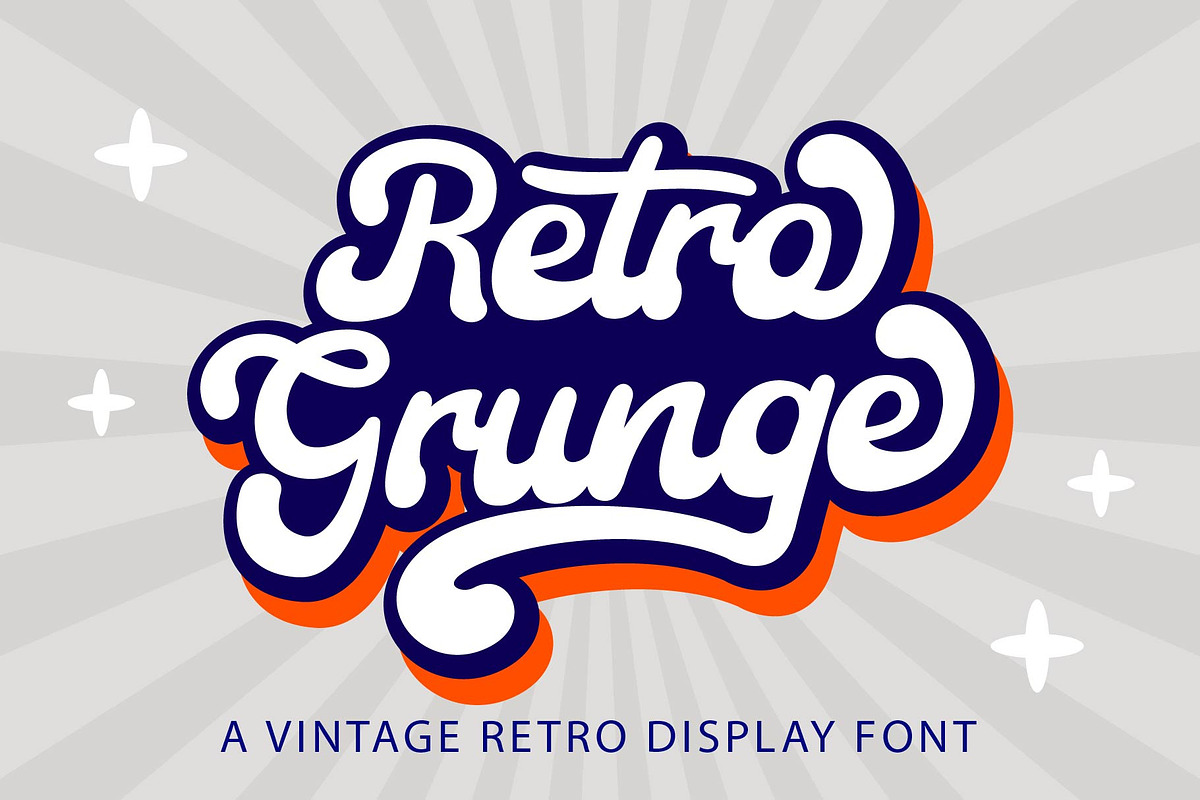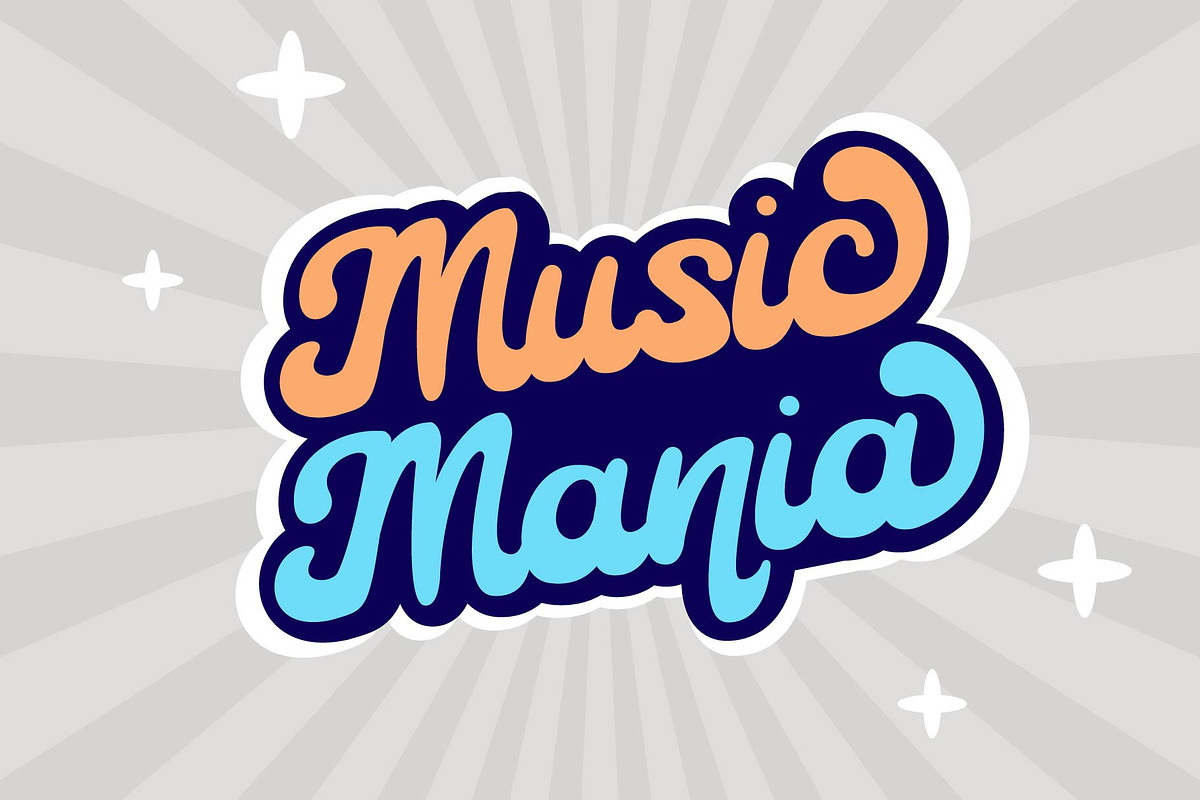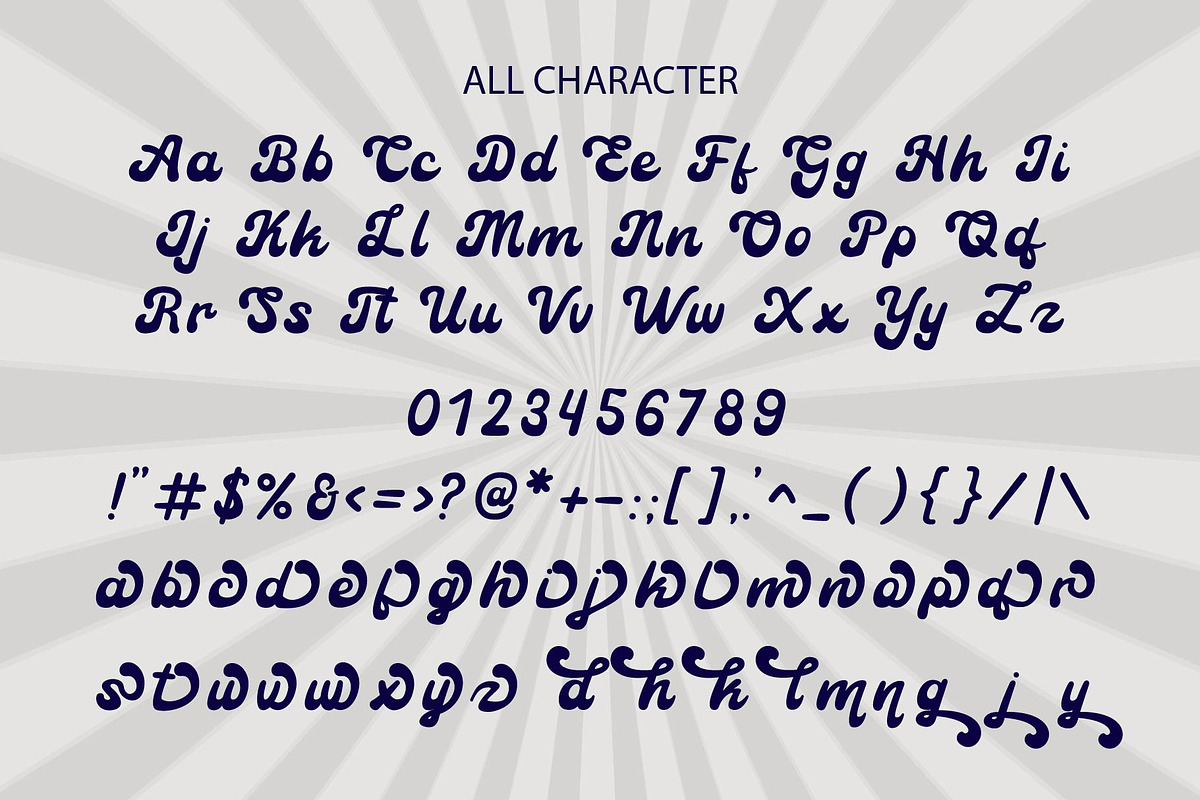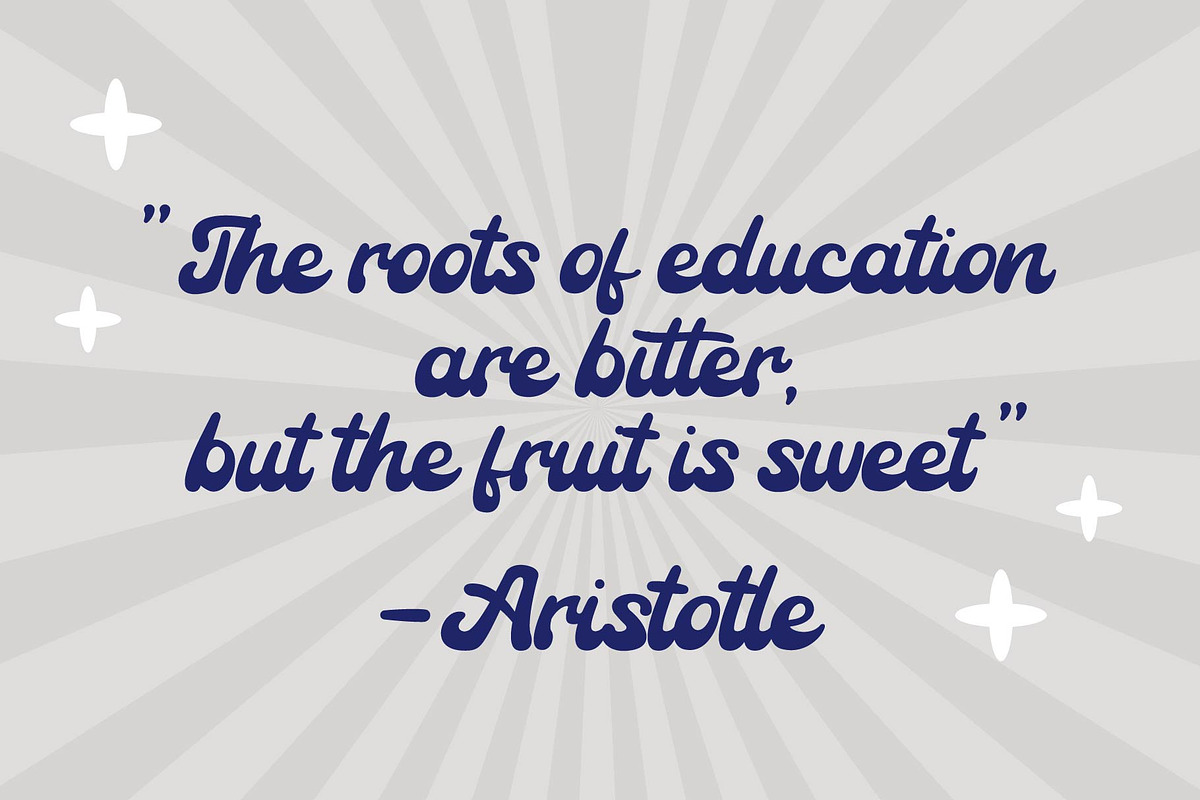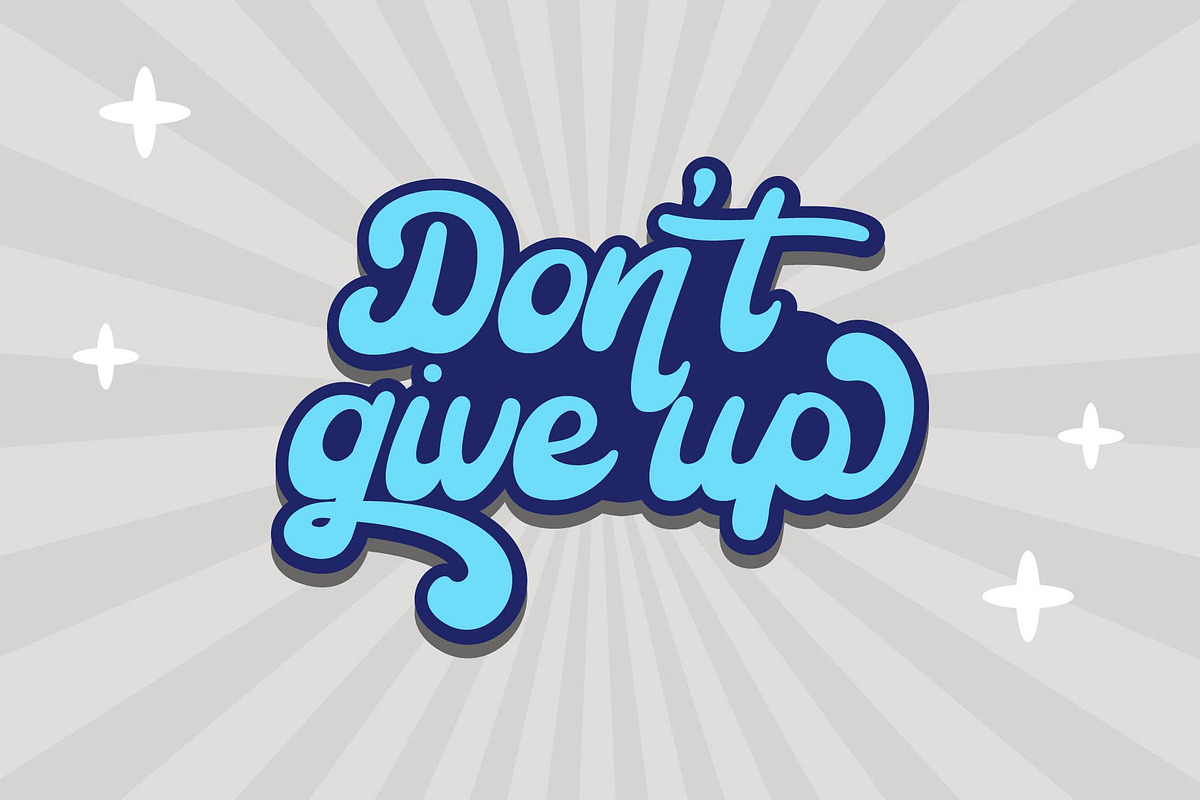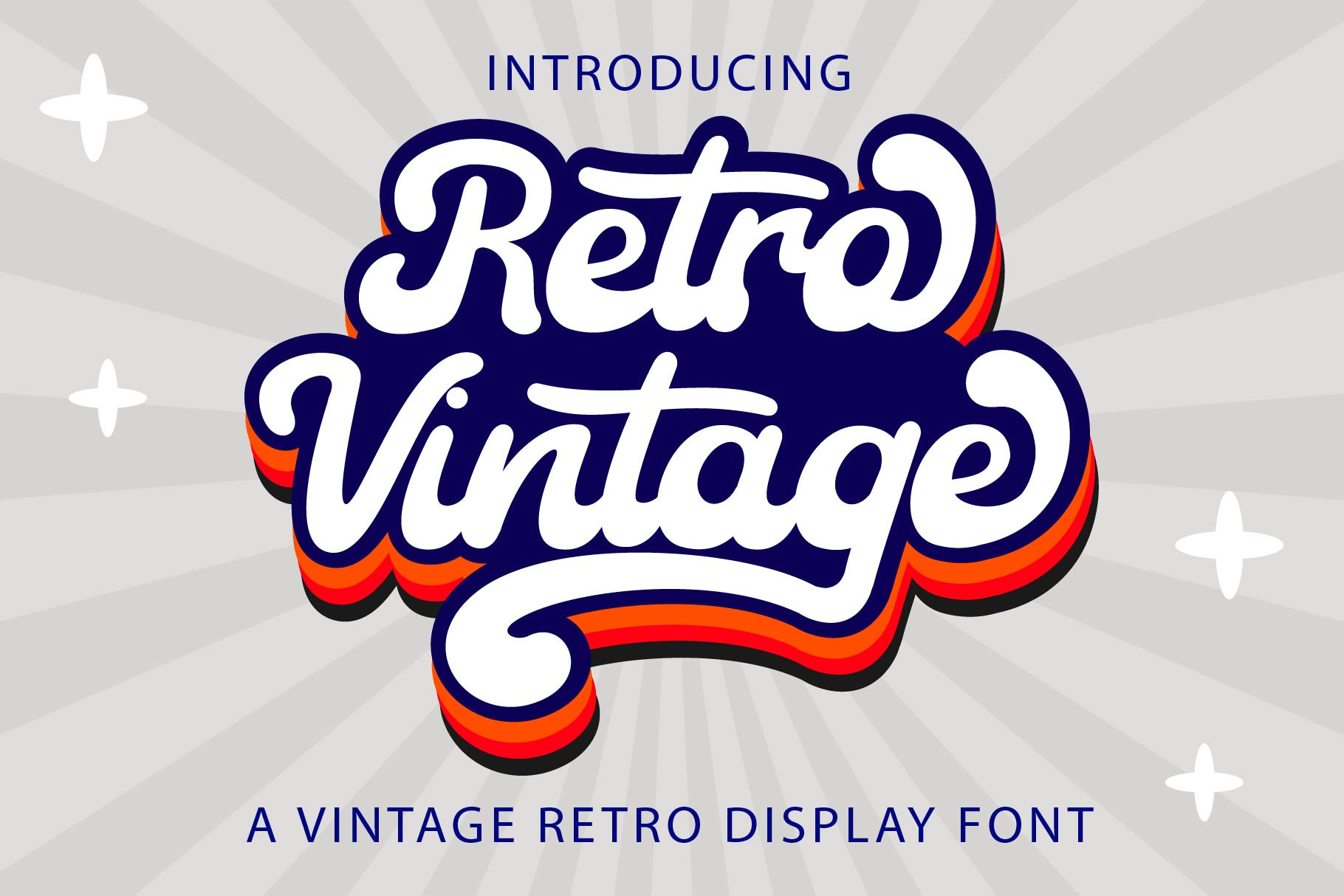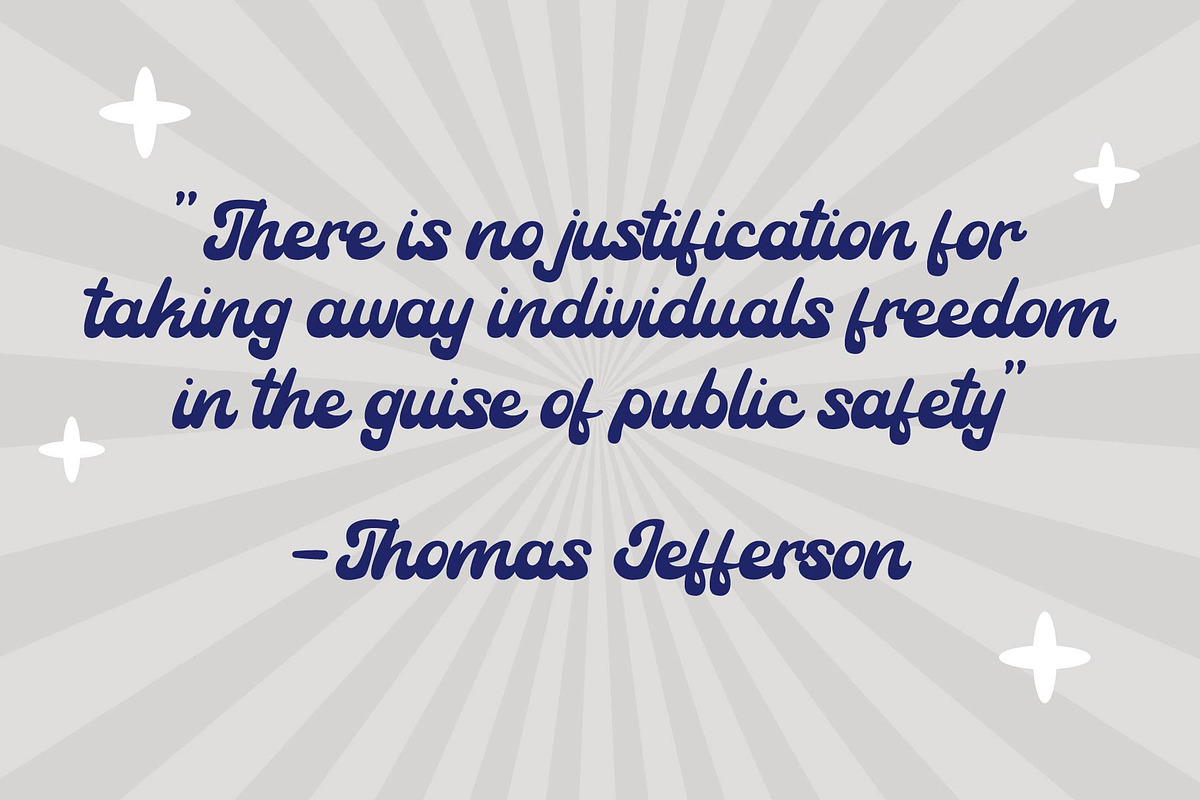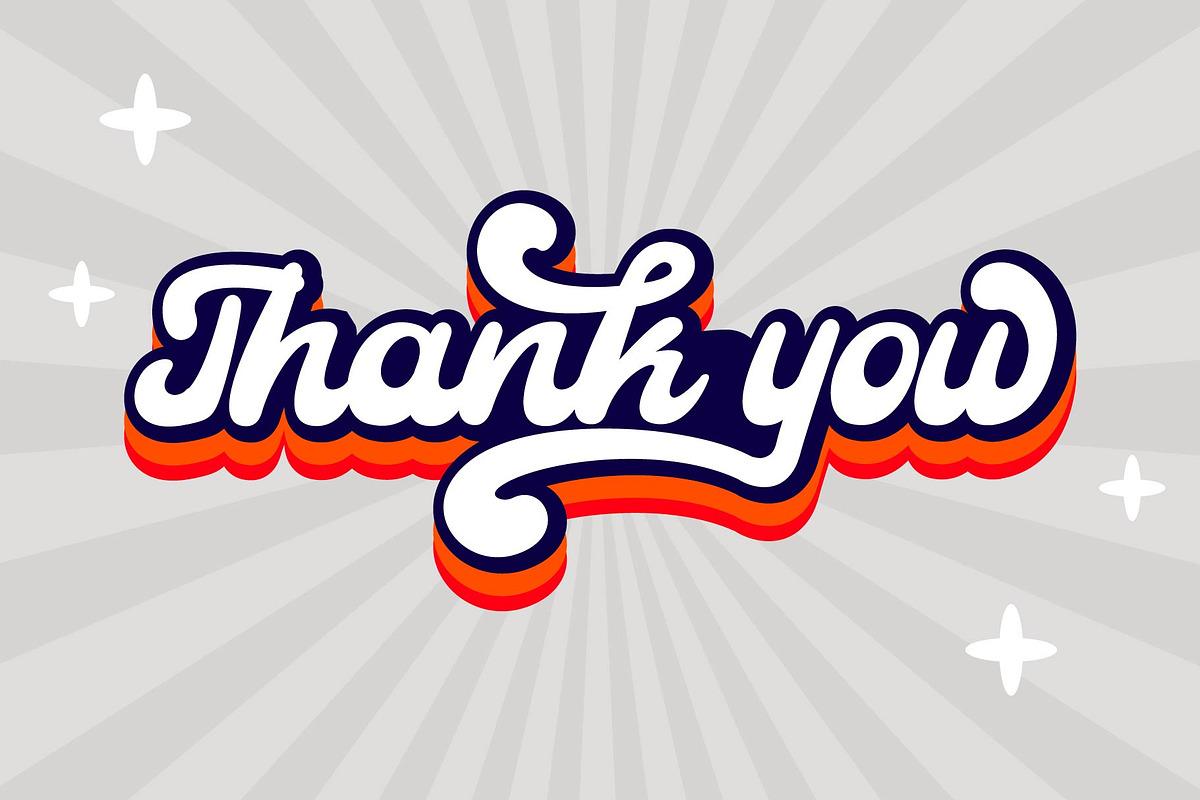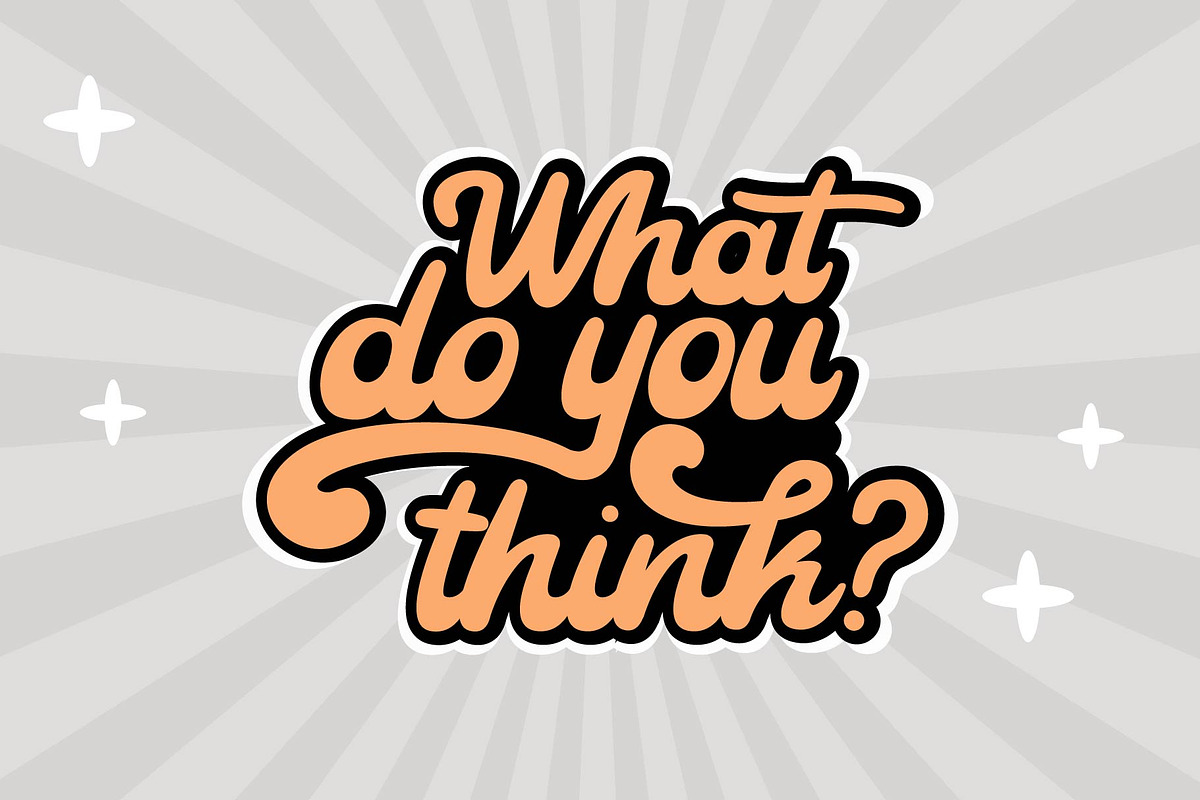
Retro Vintage - Retro Script Font
Retro Vintage is a cool, vintage-style handwritten font. Use it to add that special retro touch to any design idea! It can be used for logos, branding, invitations, stationery, wedding designs, social media posts, and much more! This font is PUA encoded which means you can access all glyphs and swashes easily!